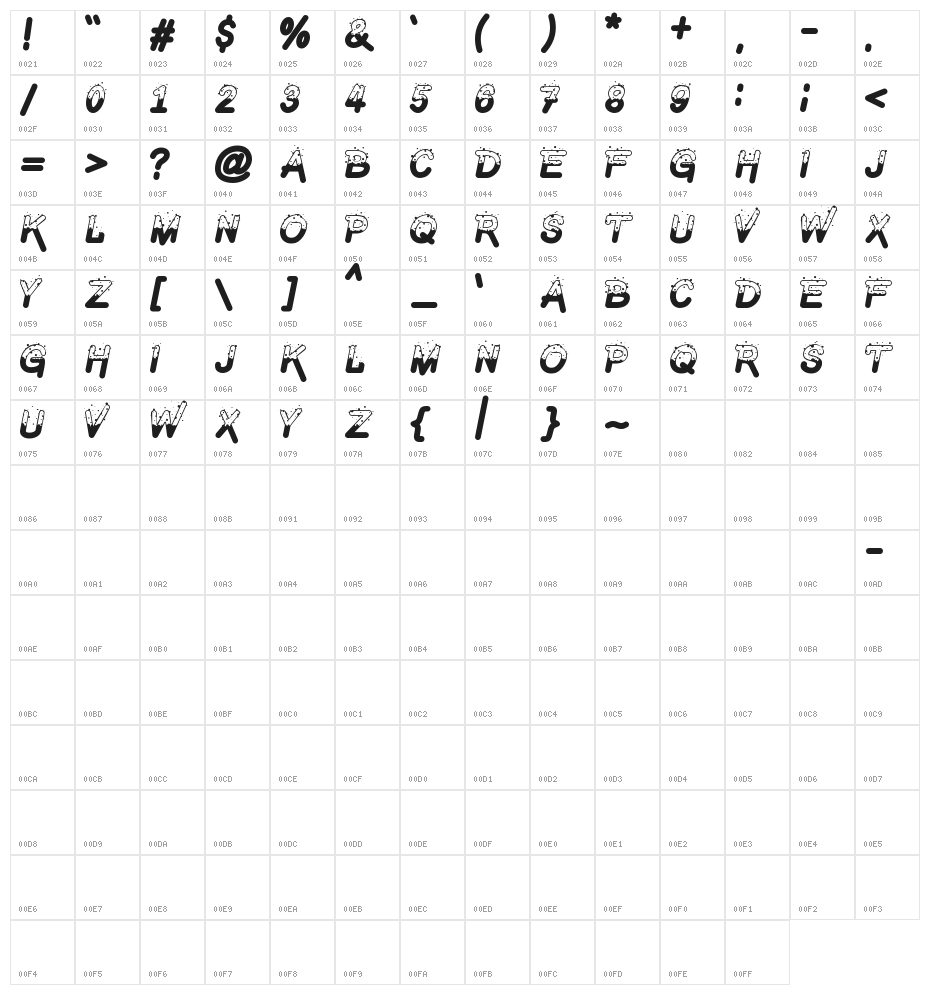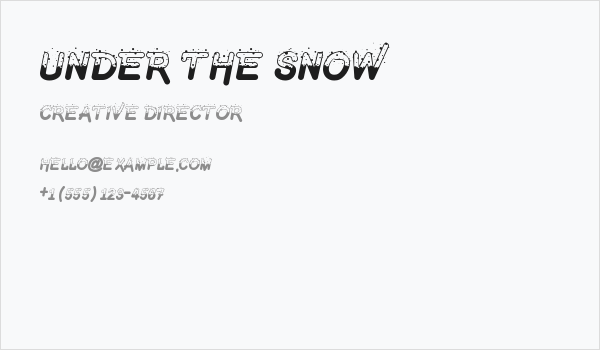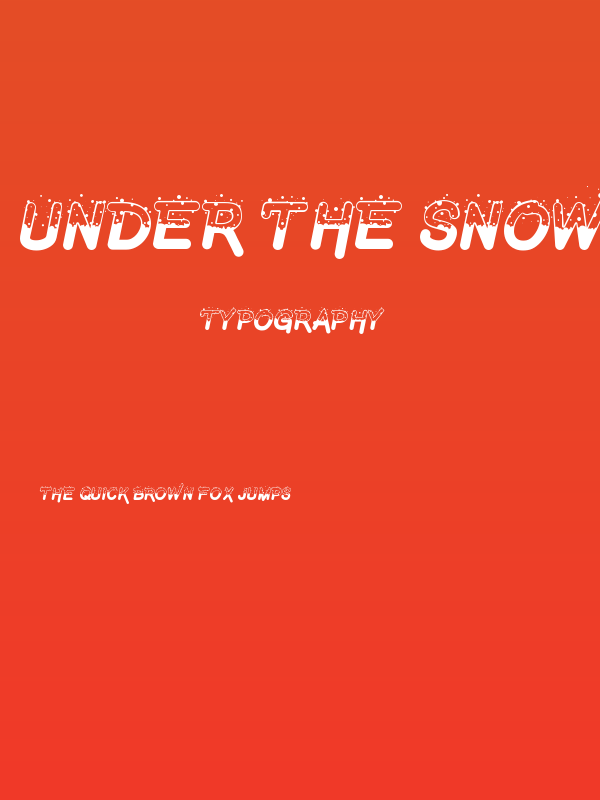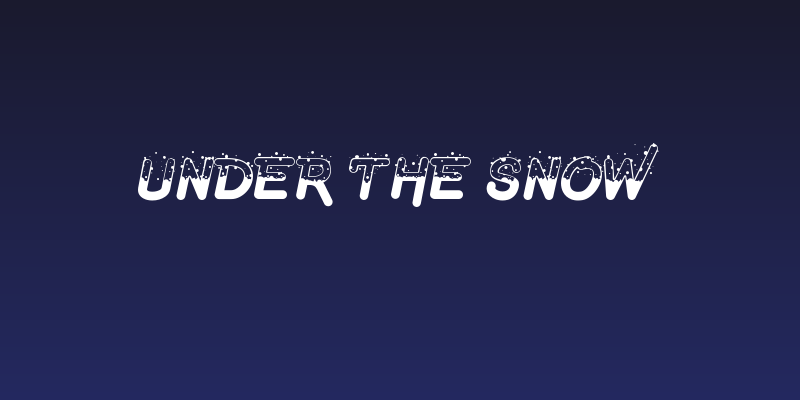
Under The Snow Font
Under The Snow Description
This playful and whimsical font features bold, rounded characters with a unique snow-like texture on top, giving it a festive and wintry appearance. The uppercase and lowercase letters maintain a consistent style, with a slight slant that adds a dynamic feel. The numbers and special characters are equally bold and textured, ensuring a cohesive look across all elements. The font's design is perfect for capturing attention and conveying a sense of fun and creativity, making it ideal for holiday-themed projects or any design that requires a touch of whimsy.
| Proposed Projects | Ideal for holiday cards, winter-themed posters, children's book covers, and playful branding. |